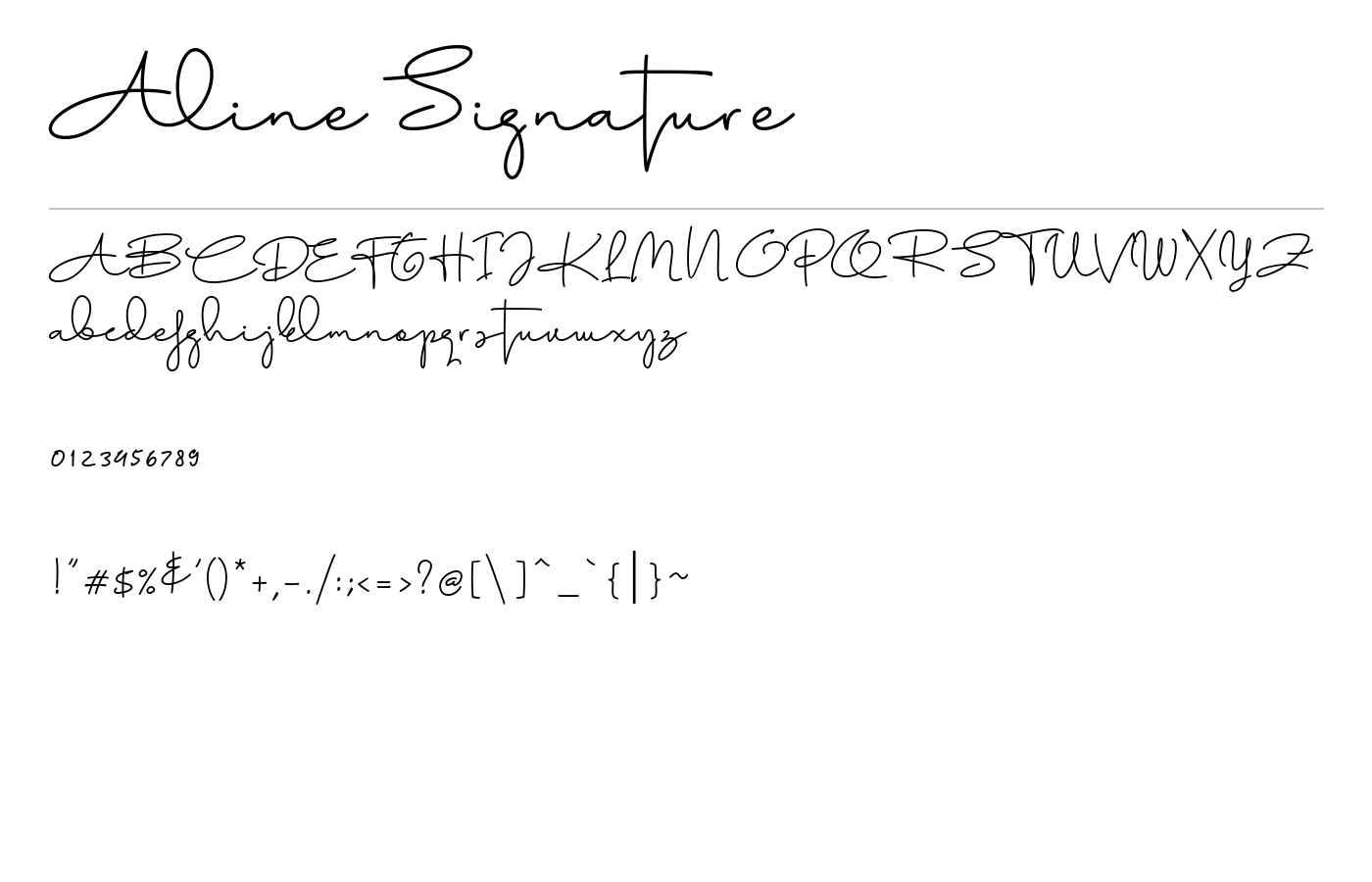
Aline Signature is a delicate and elegant handwritten script font that mimics natural, flowing penmanship with thin, airy strokes and irregular letterforms for a personal, authentic feel. Its light weight and casual sophistication make it ideal for branding, invitations, and creative projects where a graceful, intimate style adds charm and uniqueness. This font works best in logos, headlines, and designs that need a stylish, hand-crafted touch to convey warmth and individuality.
Aline Signature Font
About Aline Signature Font
| Font family | Aline Signature Font |